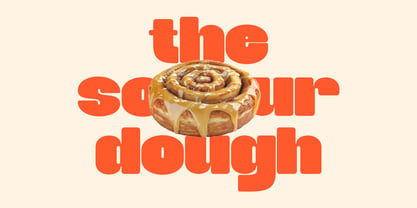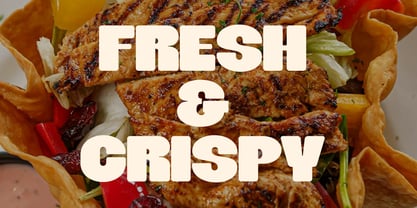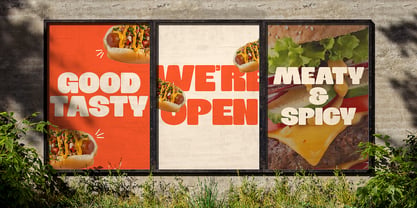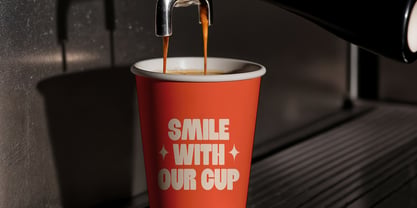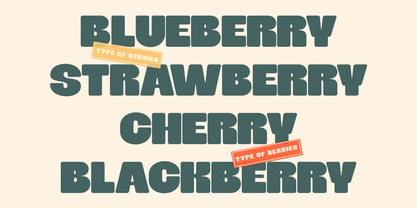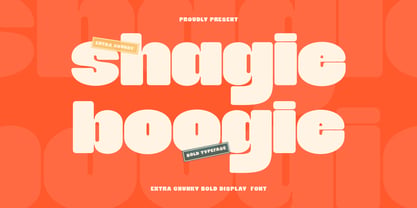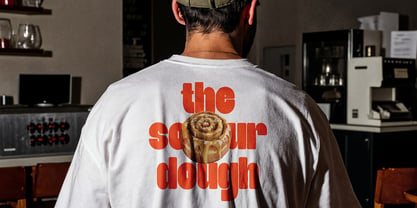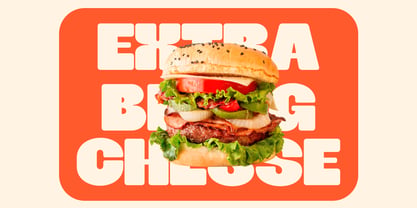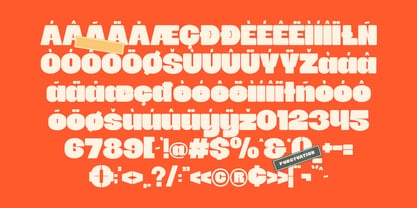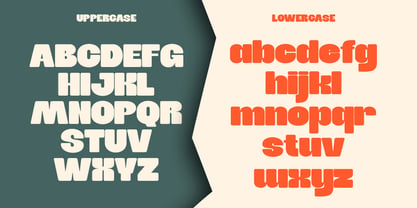
Shagie Boogie
by Moontiontype
The Shagie Boogie Font Family was designed by Dinda Nur Dwiyanti and published by Moontiontype. Shagie Boogie contains 1 styles. More about this family
Shagie Boogie is an extra chunky bold display font with a fun, retro groovy personality. Designed with thick curves and playful proportions, this typeface is perfect for eye-catching headlines and standout branding. With its heavy weight and smooth rounded edges, Snugie Boogie brings a warm, bold, and energetic vibe to any design project. Perfect For: - Logos & Branding - Posters & Headlines - Packaging Design - T-shirt Designs - Stickers & Sublimation - Social Media Graphics - Retro & Groovy Themed Projects - Kids & Fun Designs What You’ll Get: - Uppercase Letters - Lowercase Letters - Numbers & Punctuation - Multilingual Support Shagie Boogie works beautifully at large sizes and is ideal for designs that need a strong, bold visual impact. If you’re looking for a thick, attention-grabbing font with personality — Shagie Boogie is the perfect choice! Thank You Moontiontype